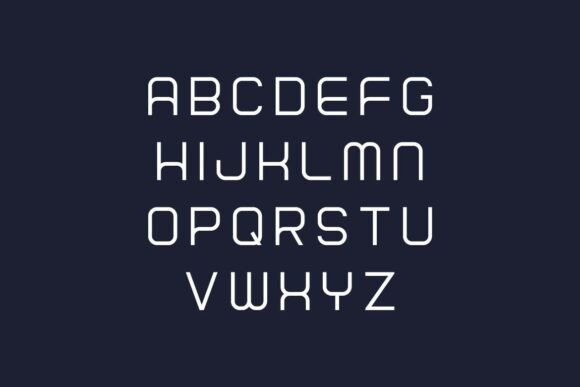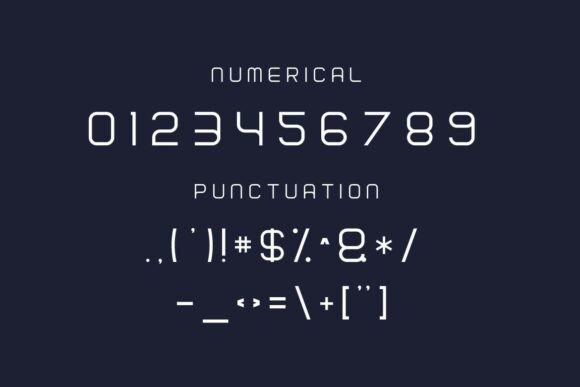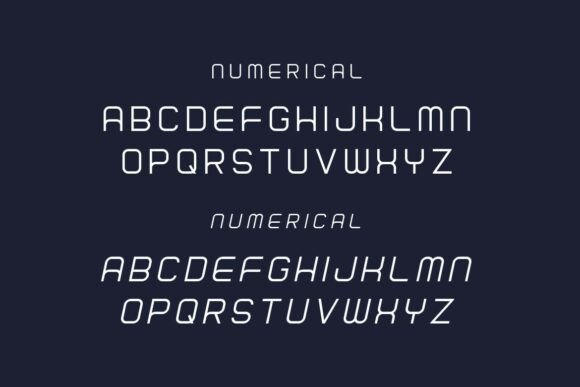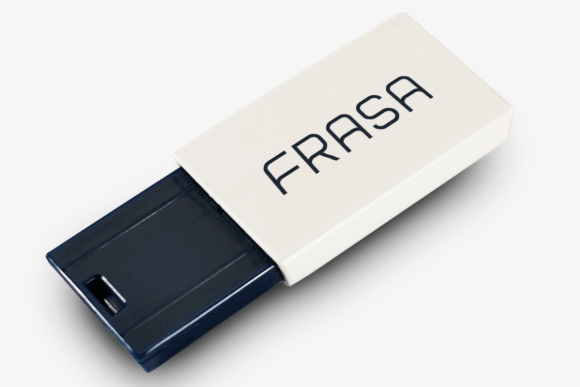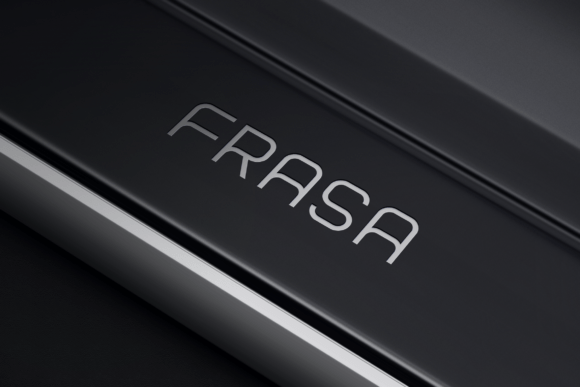
Introduction to Frasa Font
Frasa is a minimalist sans serif font designed for clarity, elegance, and effortless readability.
With clean lines, generous spacing, and a calm geometric flow, Frasa brings a refined aesthetic to any project It’s the perfect choice for branding, editorial layouts, websites, product packaging, and modern lifestyle visuals.